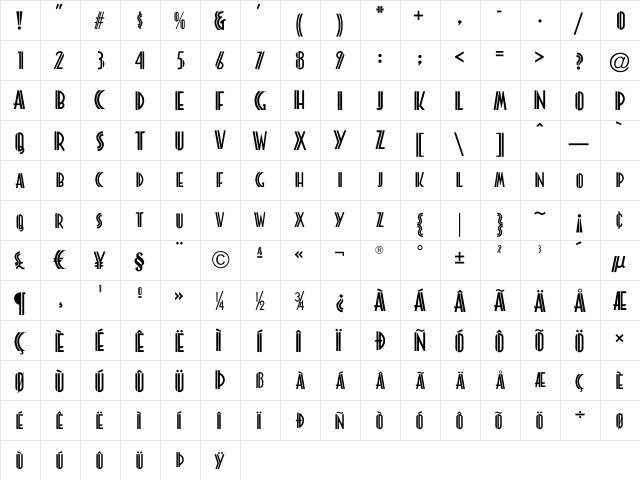
Platonick-Normal Regular Font Preview
Platonick-Normal Regular
Platonick-Normal Regular Font Details
Design Context for Platonick-Normal Typeface
Platonick-Normal is a composed and adaptable typeface that performs quietly and consistently across a wide range of design contexts.